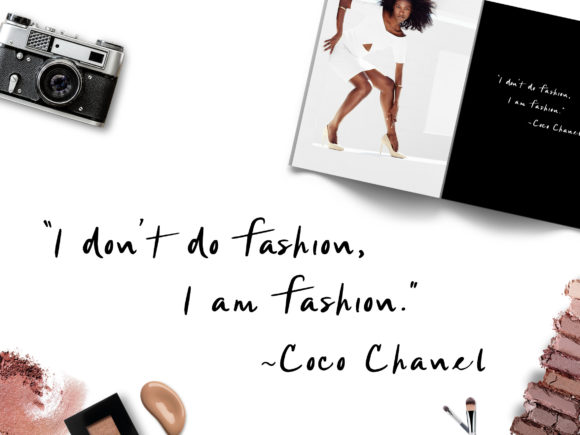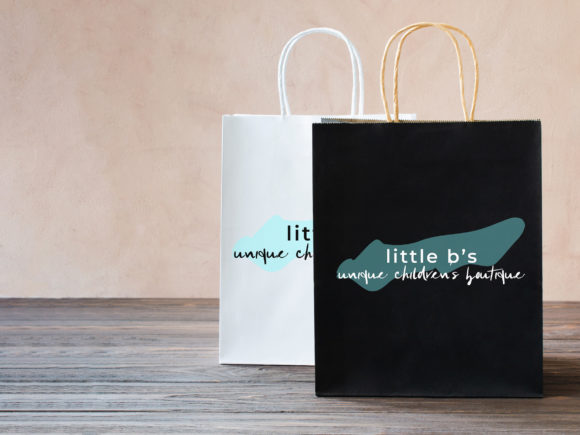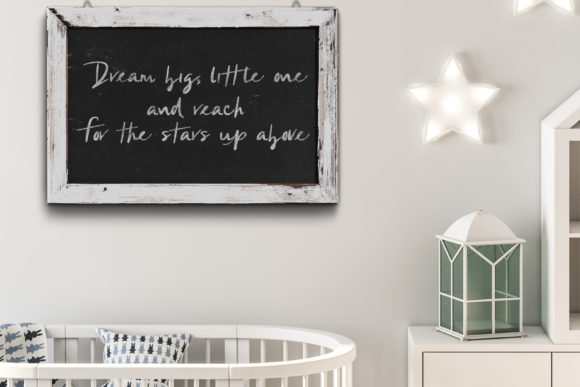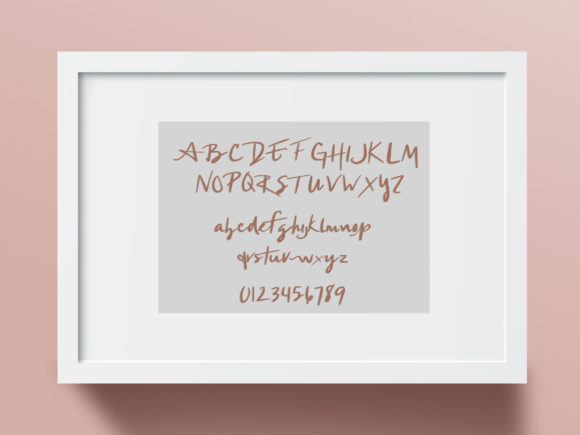
Hello Dream Font
Hello Dream is a simple, laid-back and asymmetrical handwritten font. Its natural and unique style makes it incredibly fitting to a large pool of designs. The only limit is your imagination!